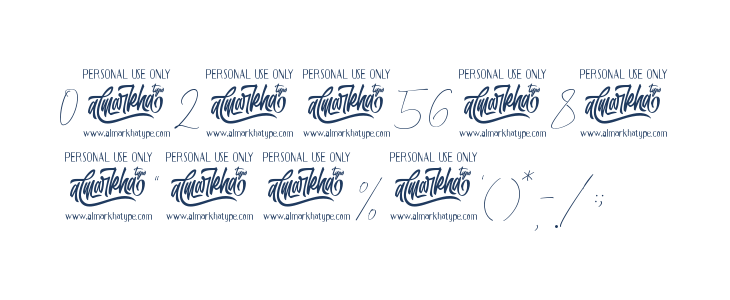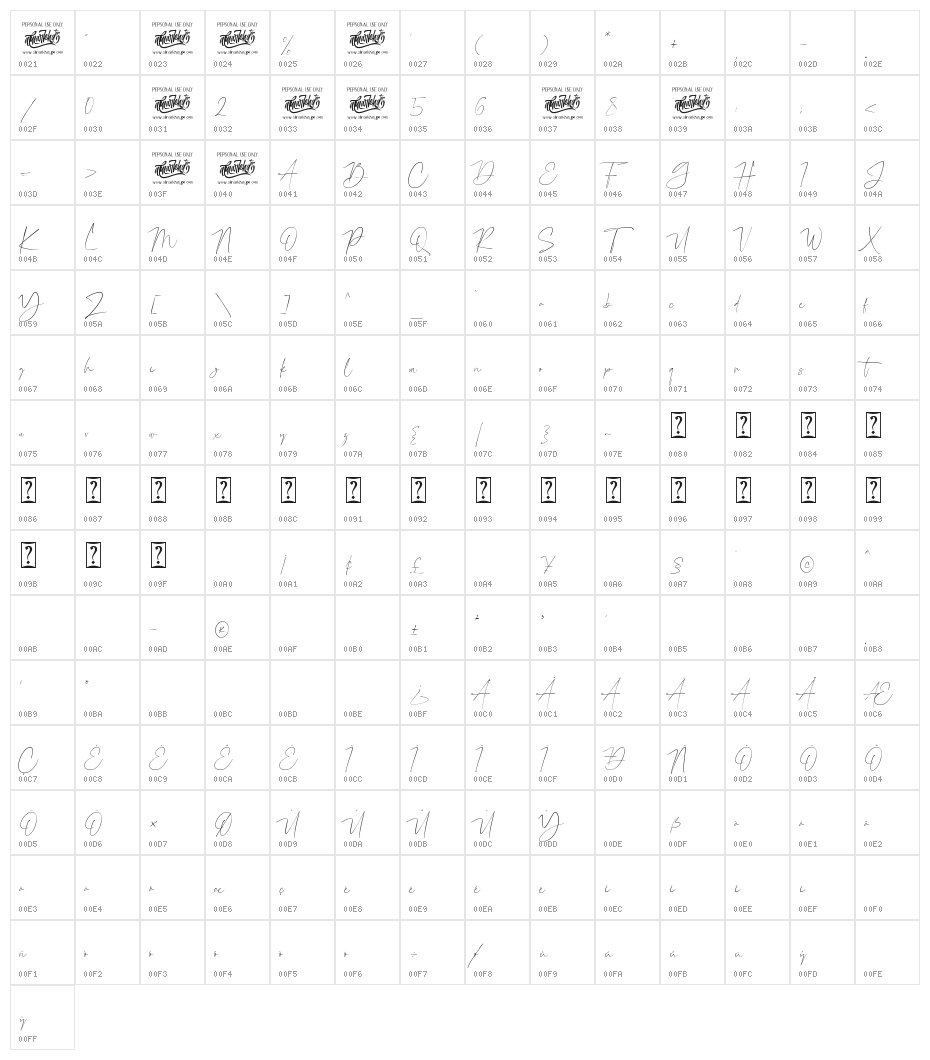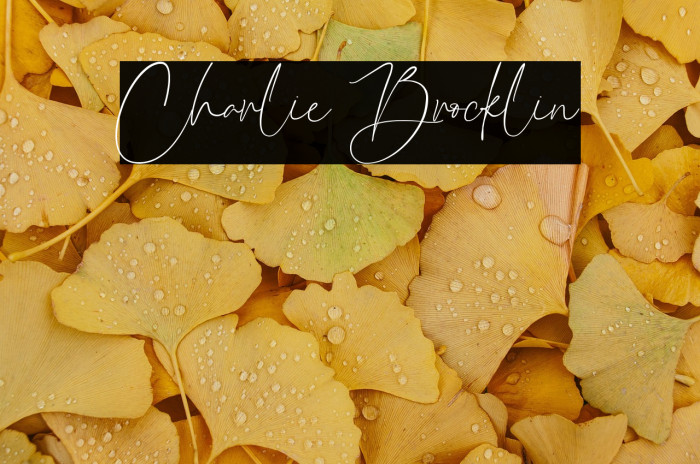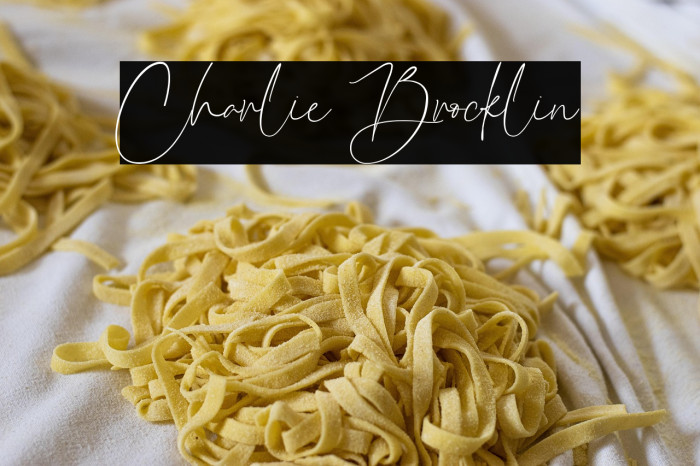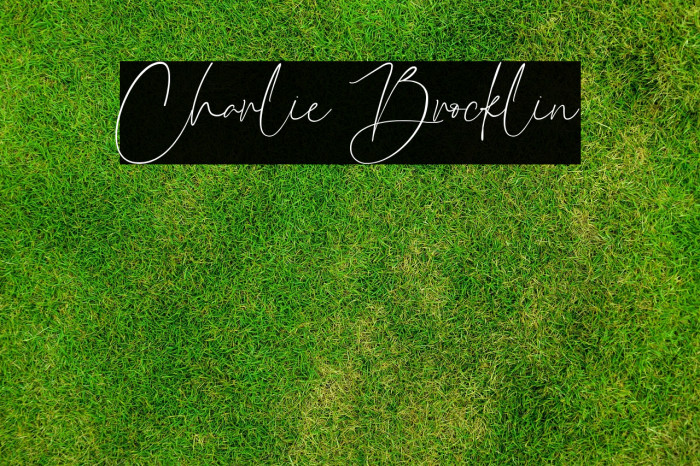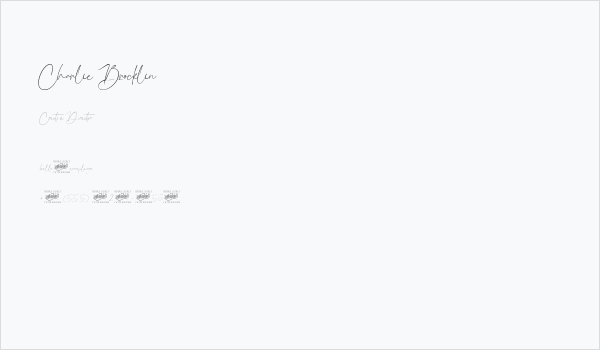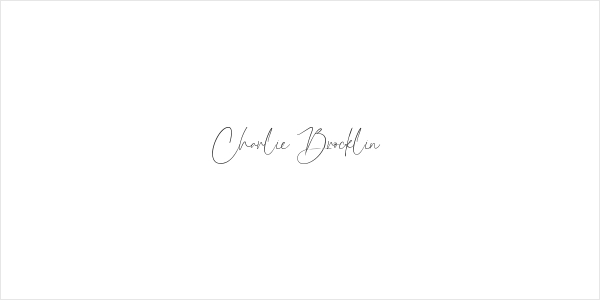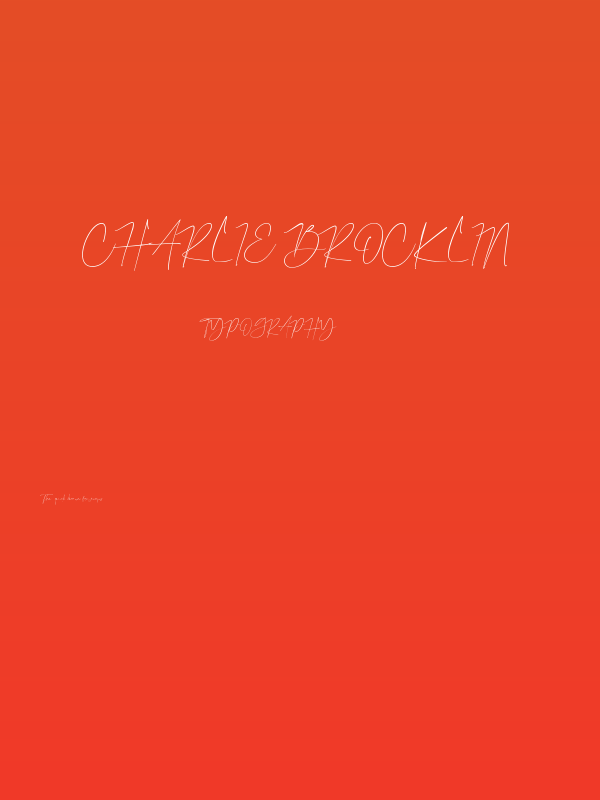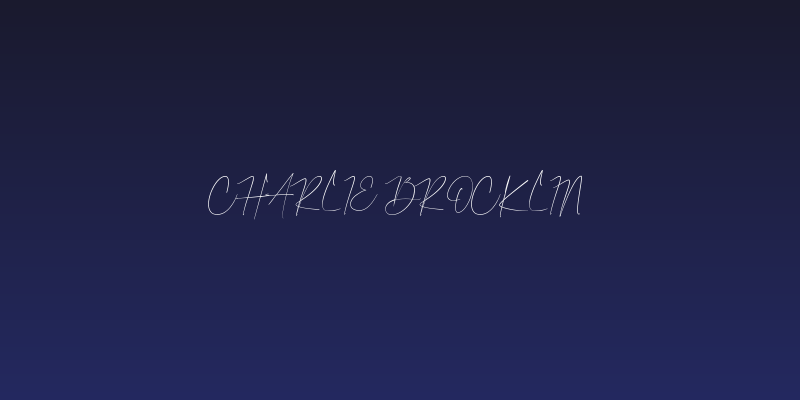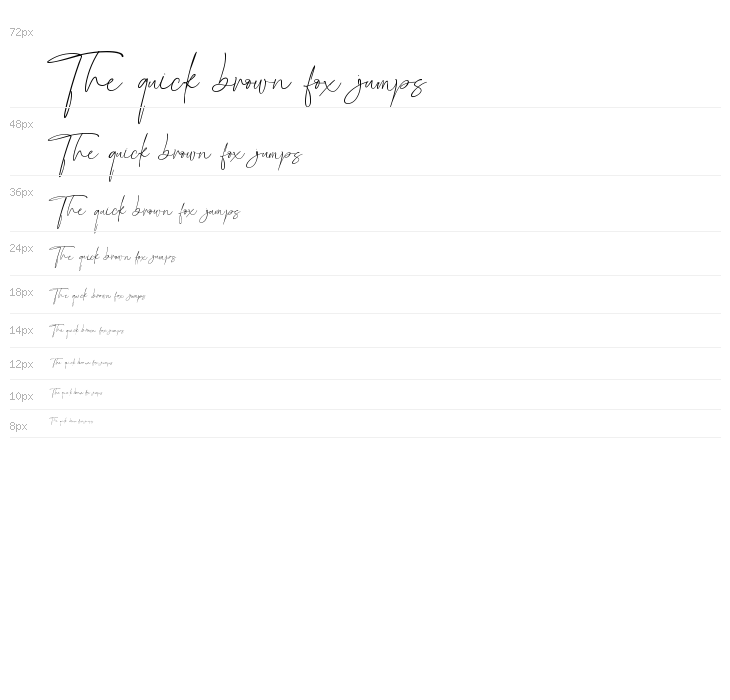
Charlie Brocklin Font
Charlie Brocklin Description
This font features an elegant, flowing script style with a handwritten appearance. The characters are connected in a fluid manner, giving it a natural and organic feel. The uppercase letters are tall and slender, while the lowercase letters maintain a consistent flow, enhancing the overall aesthetic. The numerals and special characters are designed to complement the alphabet, maintaining the same graceful style. This font exudes a sense of sophistication and creativity, making it suitable for projects that require a personal touch.
| Overall Style | Elegant, Handwritten |
| Use Case | Logos, Invitations, Personal projects |
| Proposed Projects | Ideal for wedding invitations, greeting cards, branding, and personal projects that require a touch of elegance and sophistication. |